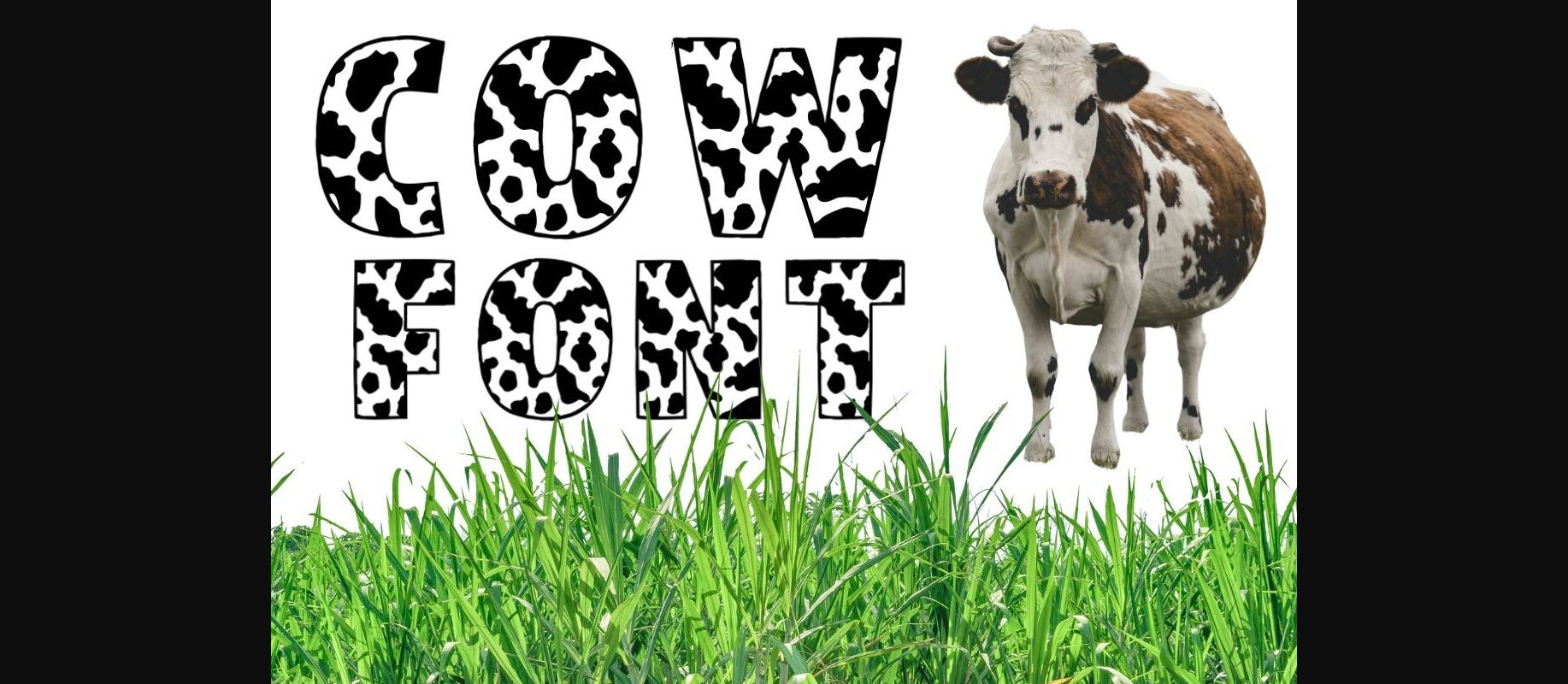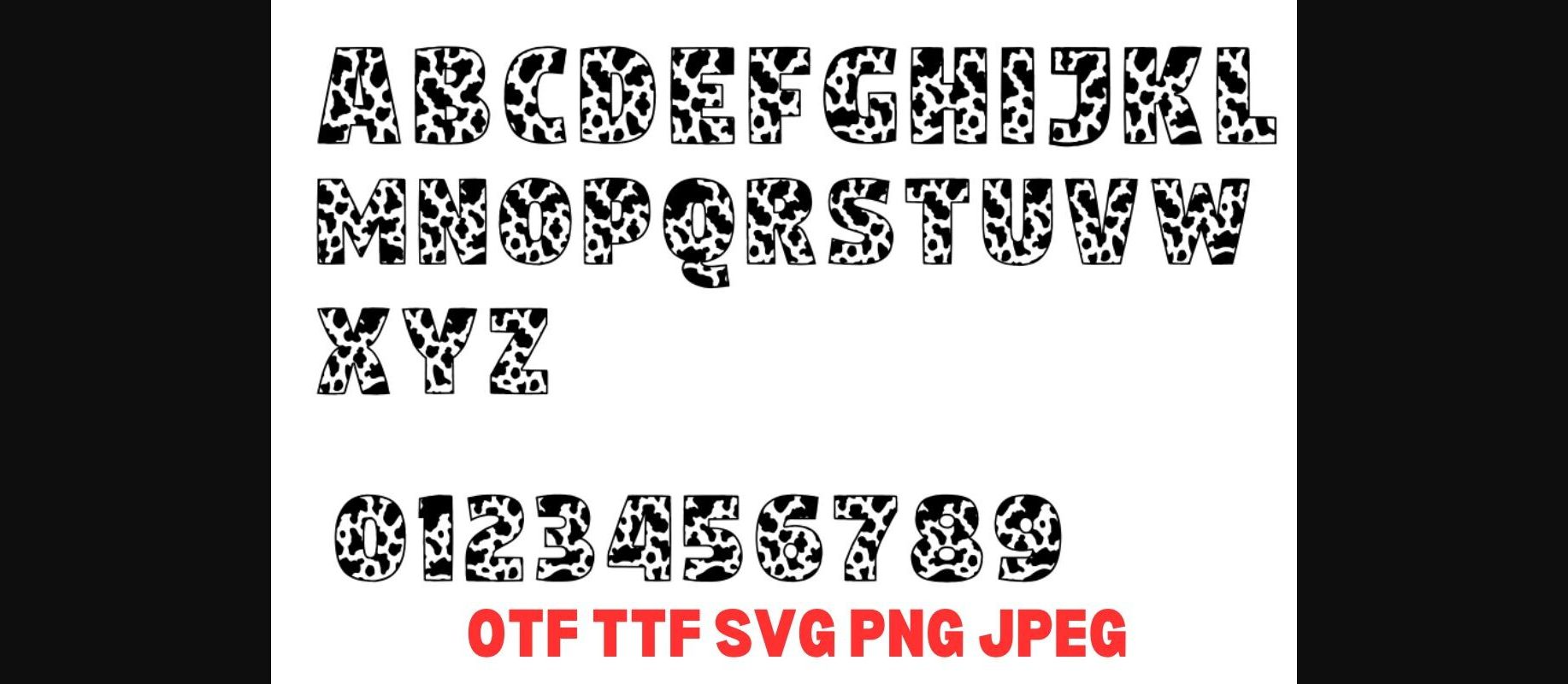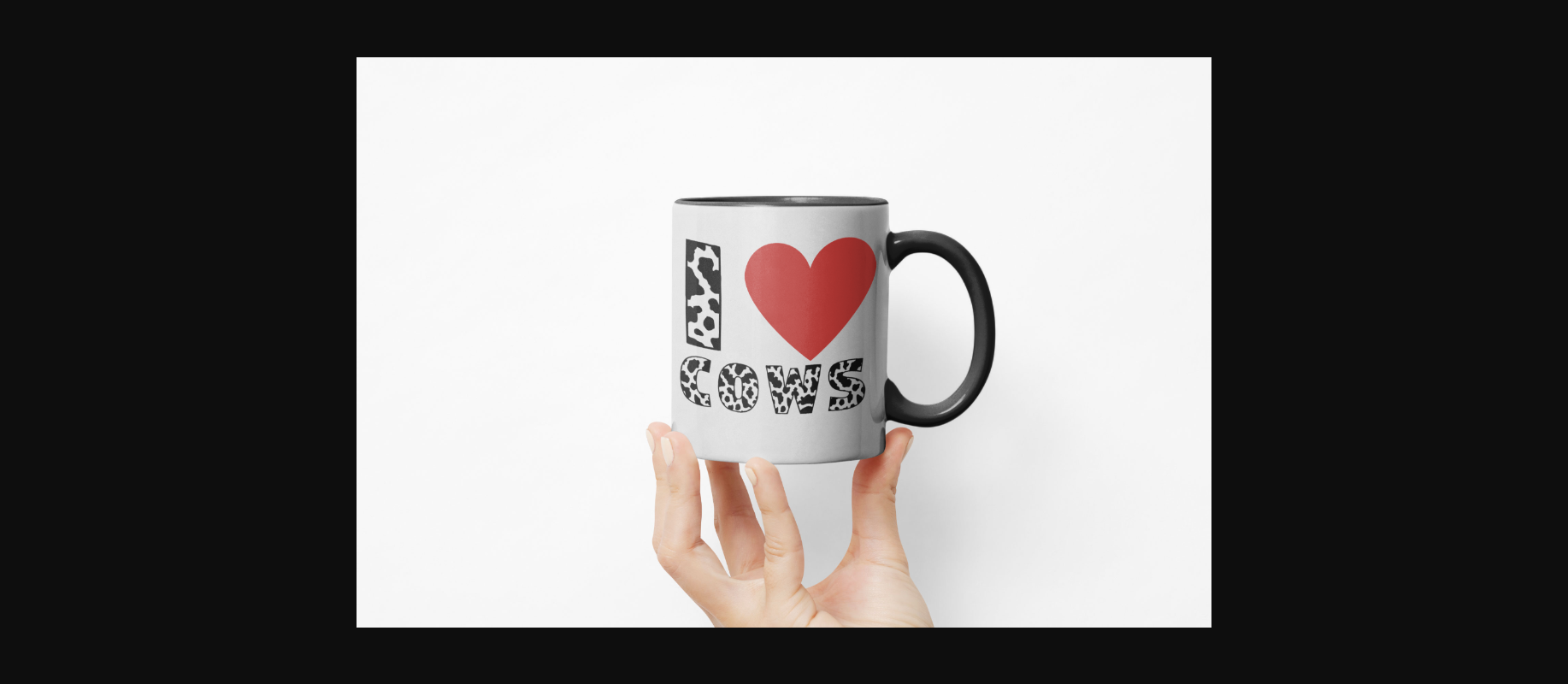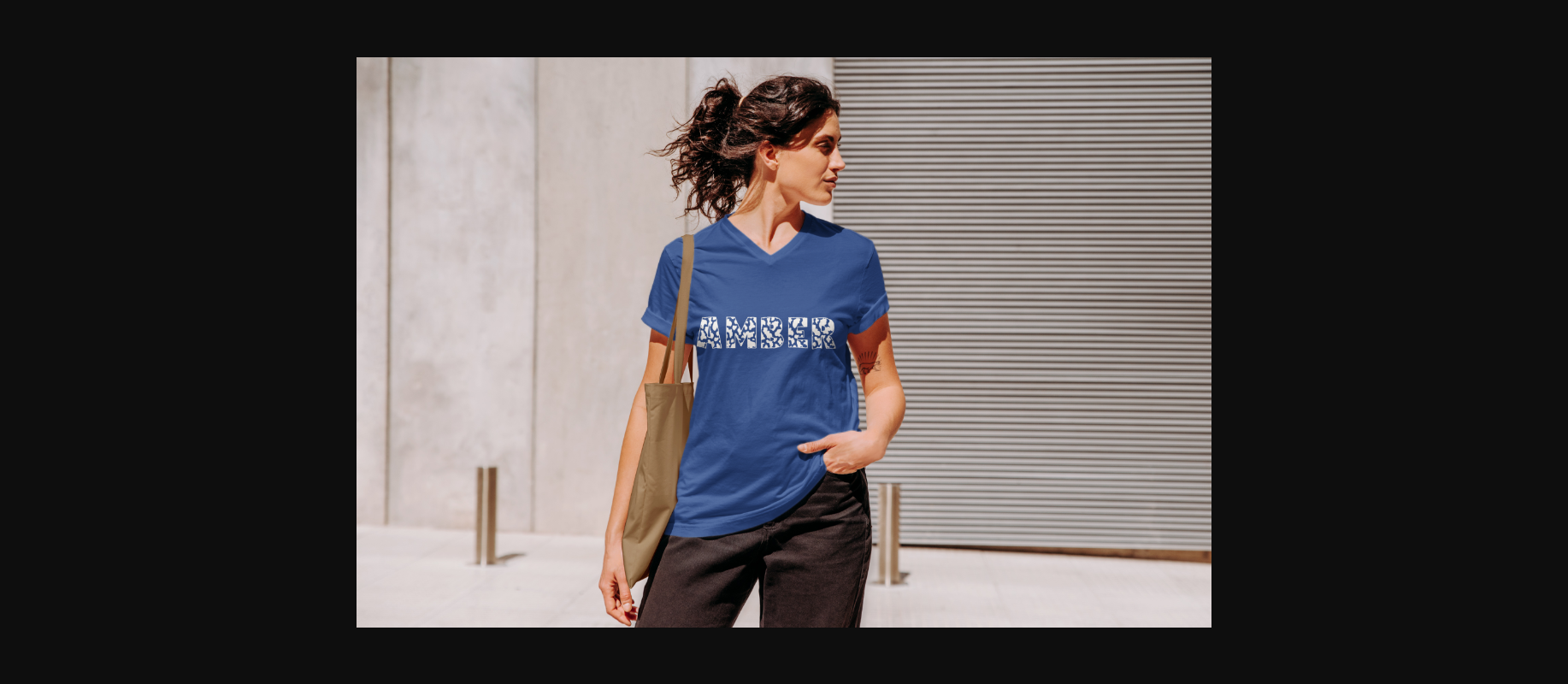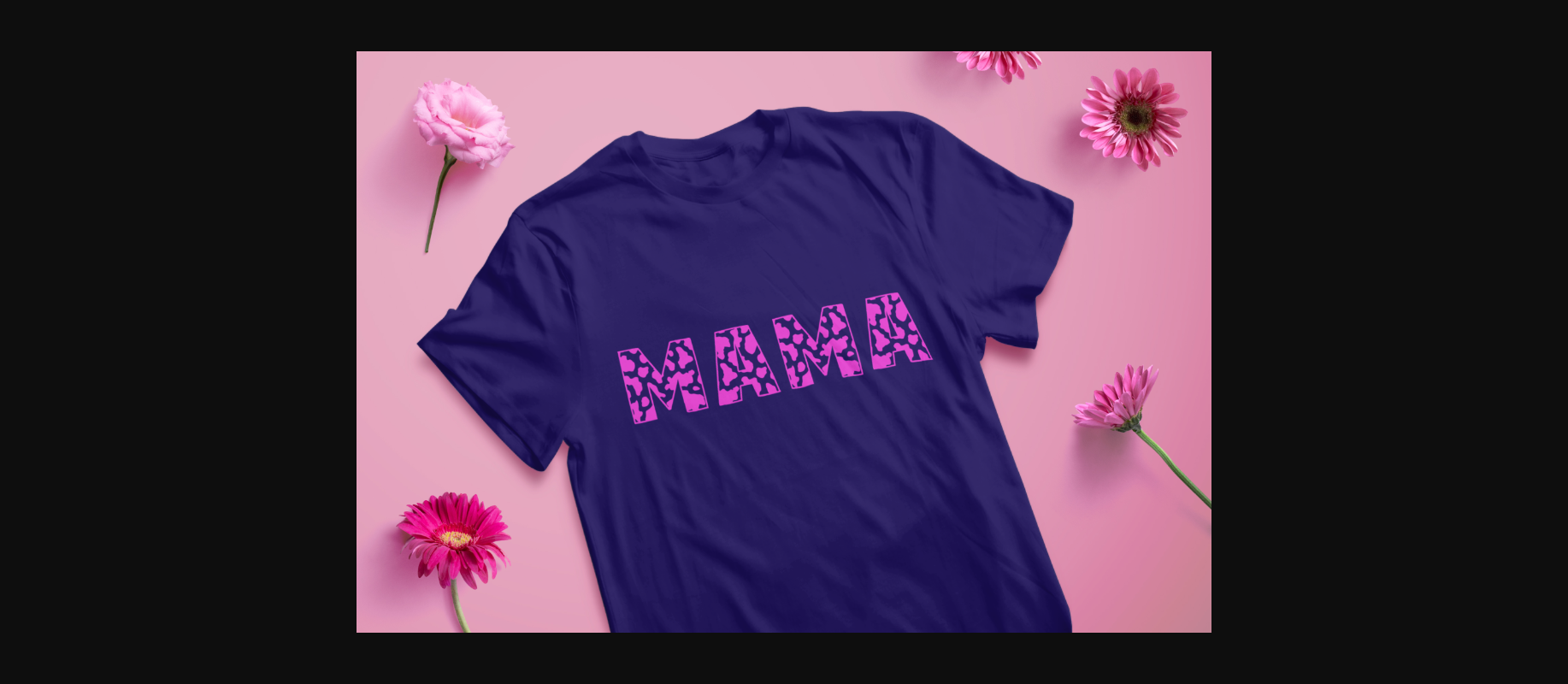
Cow Font
About Cow Font
Introducing “BovinePrint,” your go-to choice for adding a delightful touch of the farm to your creative projects! This unique Cow Pattern Alphabet & Numbers Font is a versatile design tool ensuring compatibility with various design software and applications.